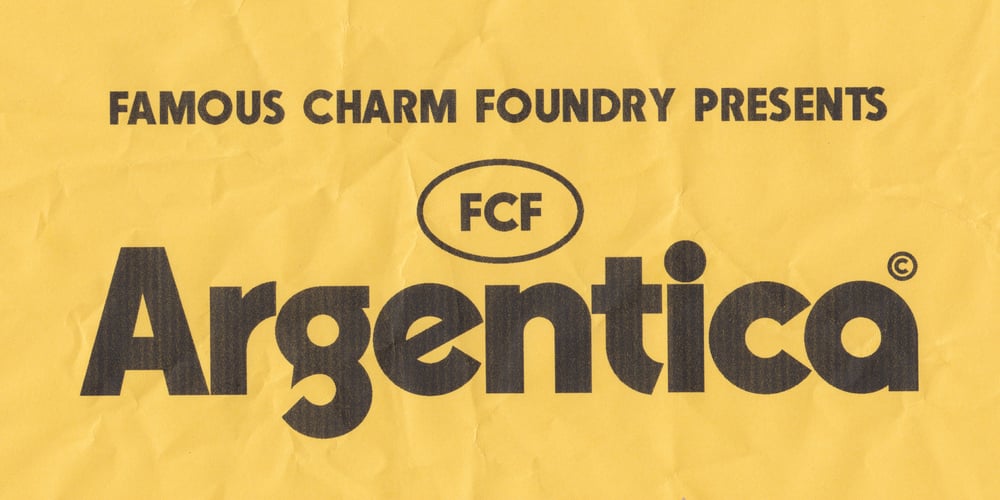
FCF Argentica Font Family was designed by Thomas Bradley and published by Famous Charm. FCF Argentica contains 1 styles and family package options. FCF Argentica is a heavy-weight geometric display sans with some funky flare and a couple functional lowercase alternates for subtle customization capabilities. It’s the long-lost cousin of Kabel and shares its illustrious leanings towards avant garde, Bauhaus sensibilities.